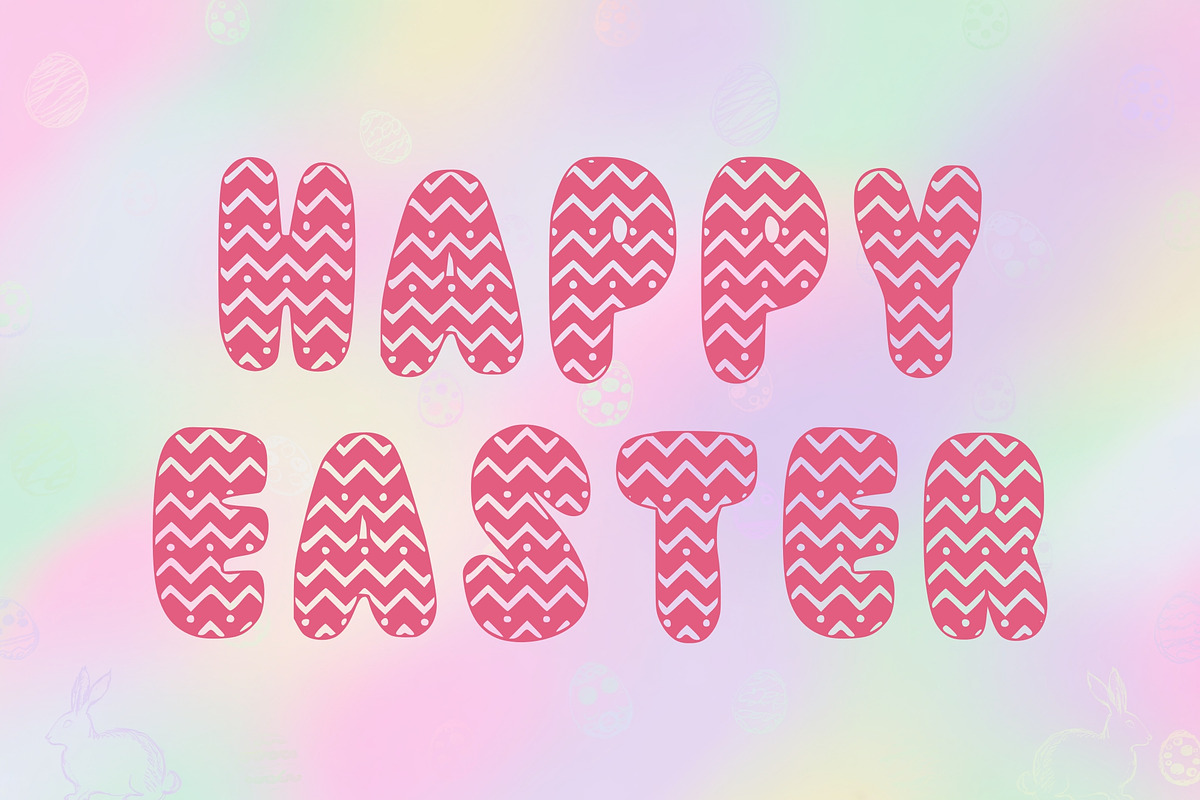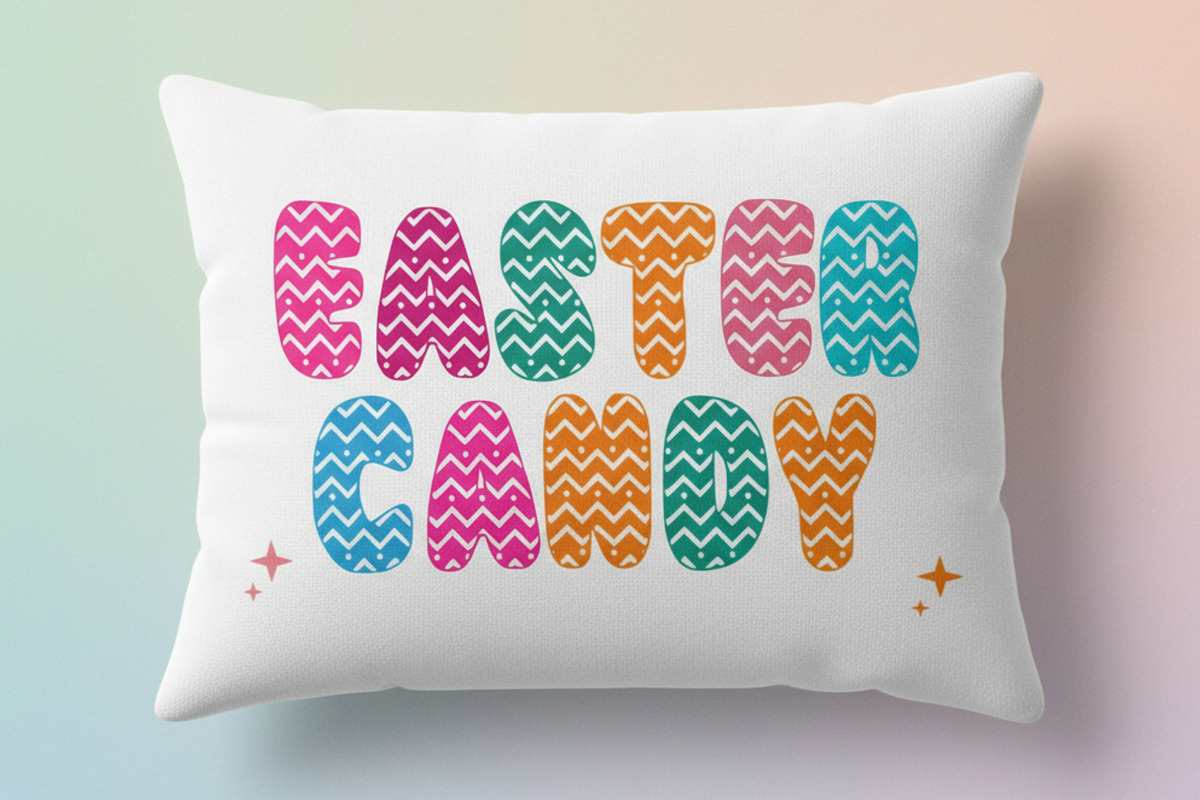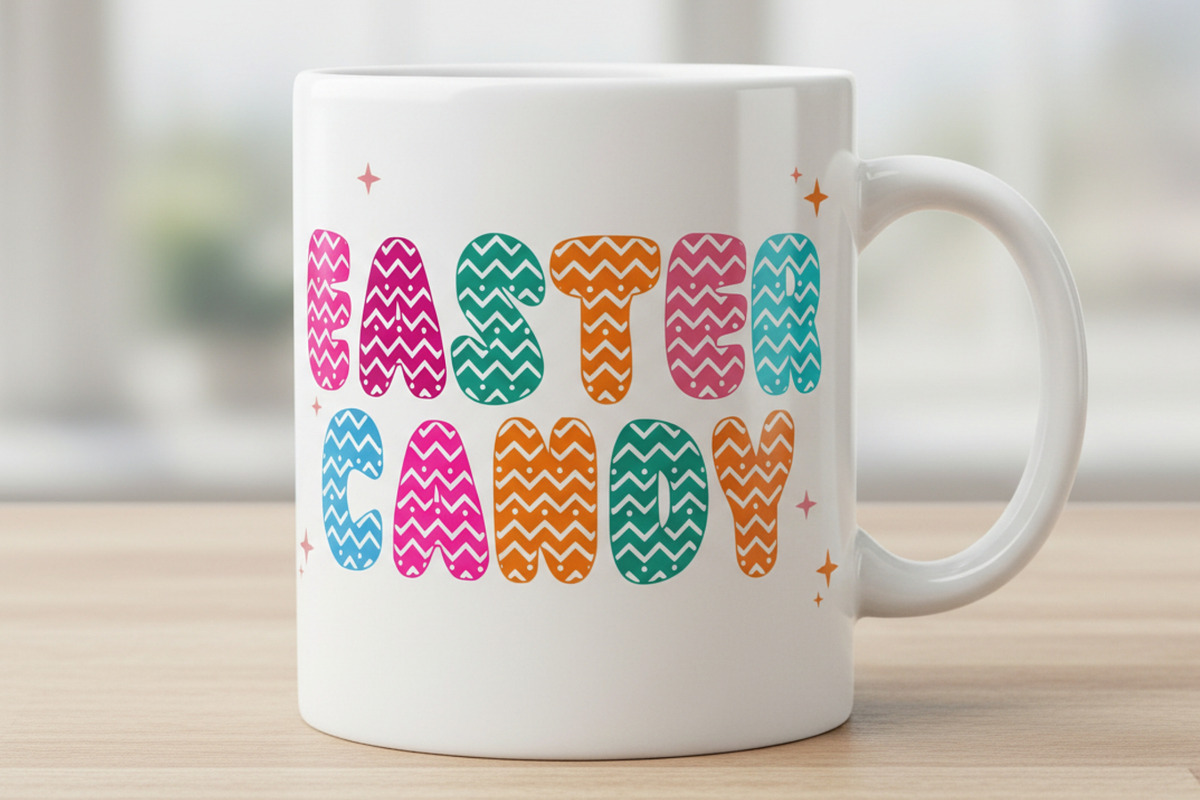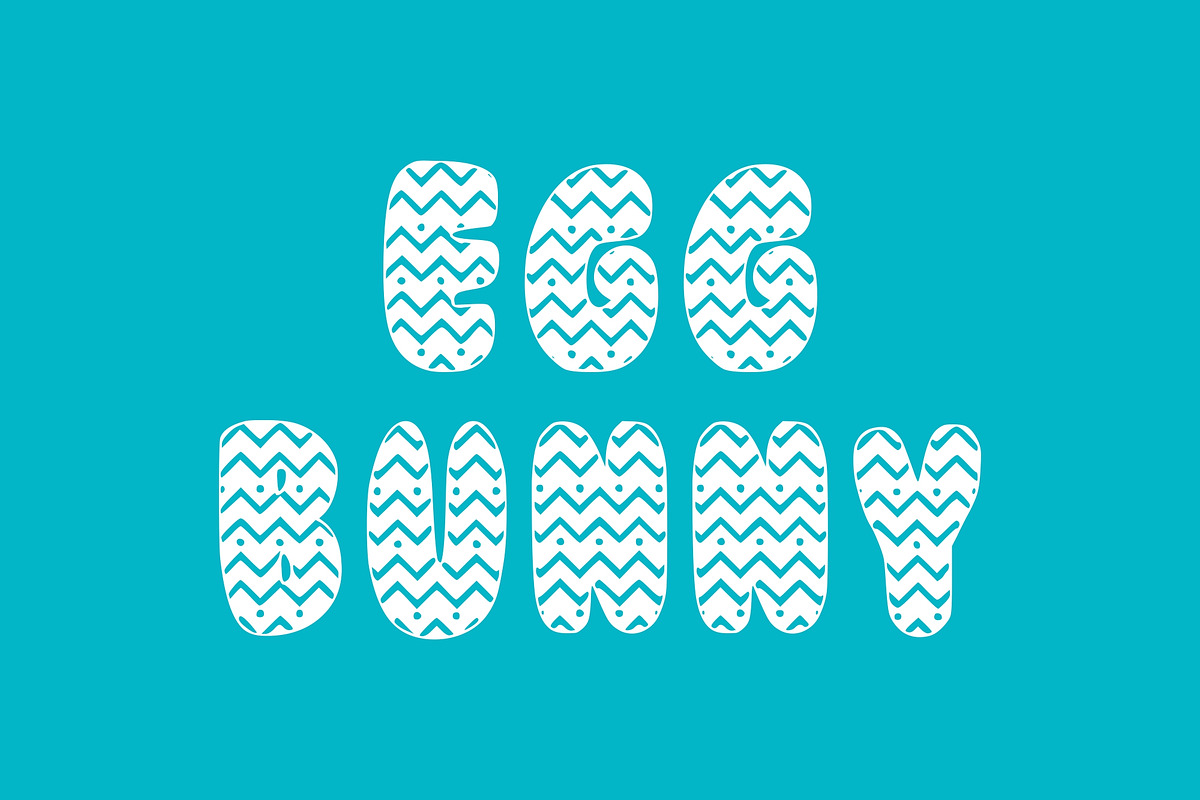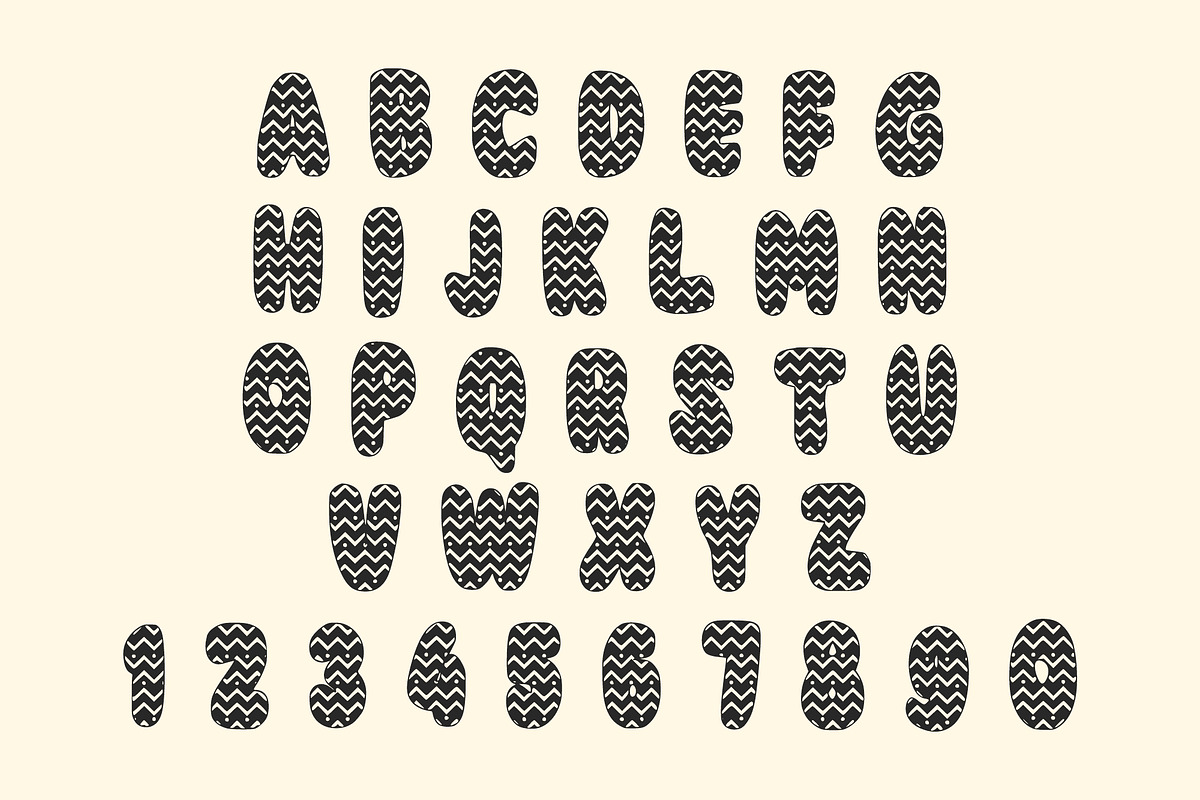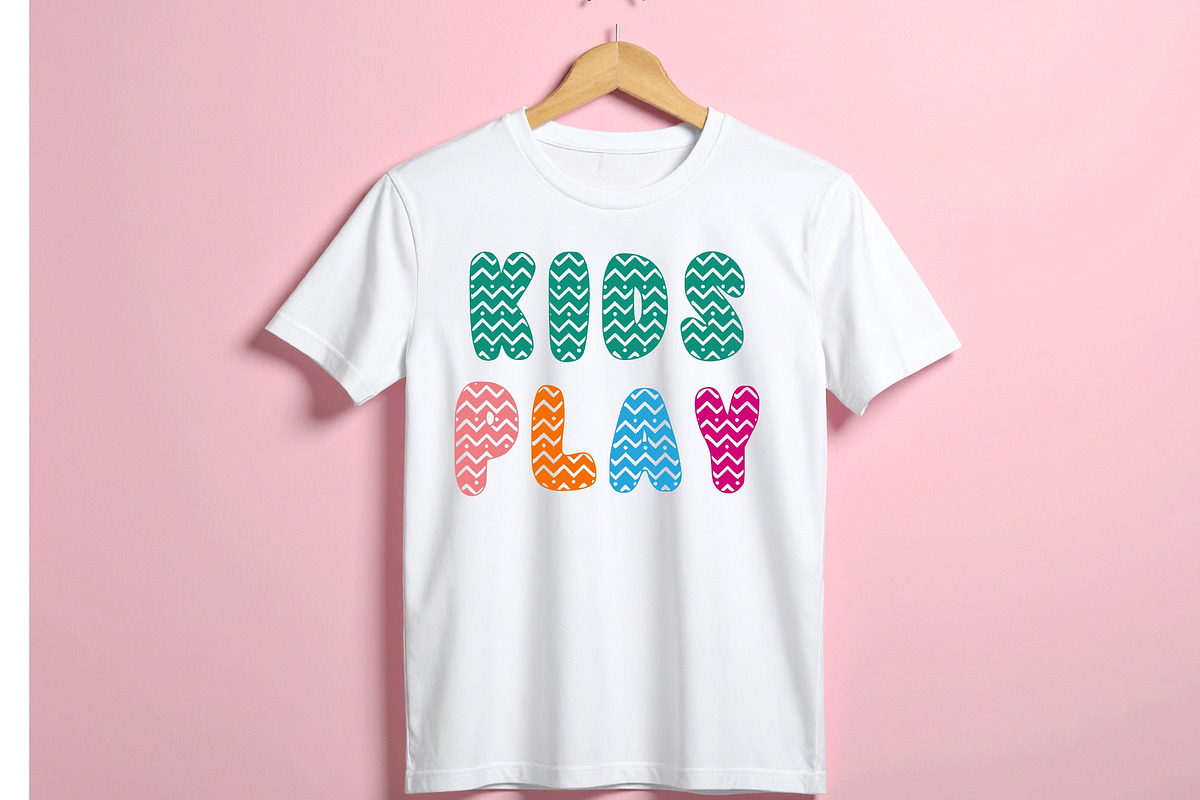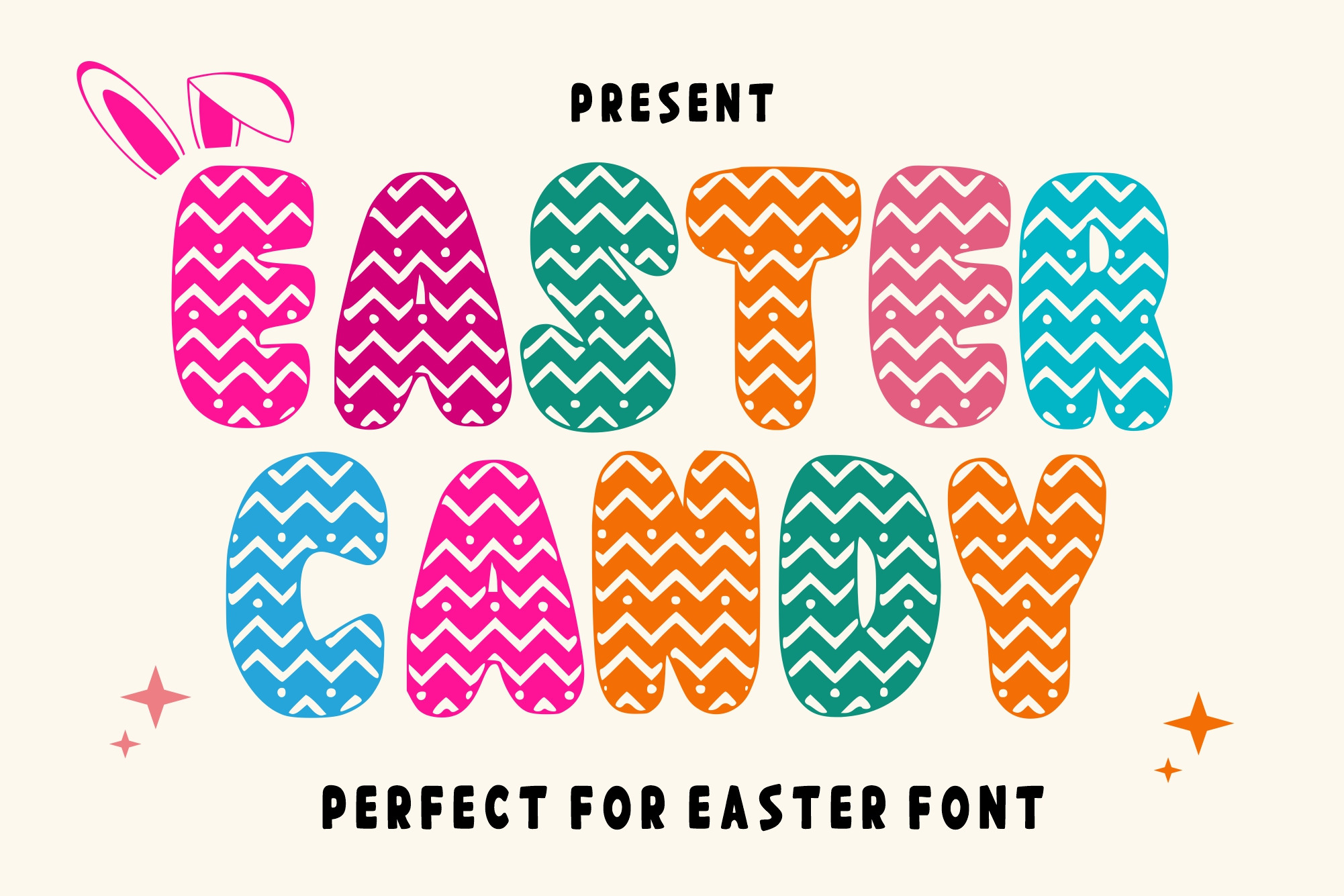
Easter Candy Font
Bring sweetness and festive charm to your designs with Easter Candy, a delightful display font inspired by colorful Easter eggs, candy, and joyful spring celebrations. Featuring bold rounded characters decorated with playful zigzag and polka dot patterns, this font instantly creates a fun and eye-catching look for all your creative projects.
Perfect for Easter-themed crafts, children's products, holiday invitations, classroom decorations, party supplies, stickers, sublimation designs, and Cricut projects, Easter Candy delivers a cheerful personality while remaining highly readable. Whether you're designing for print or digital media, this font adds a vibrant and festive touch that makes every project stand out.
Ideal for designers, crafters, teachers, small businesses, and anyone looking to create bright, playful typography with a seasonal twist.